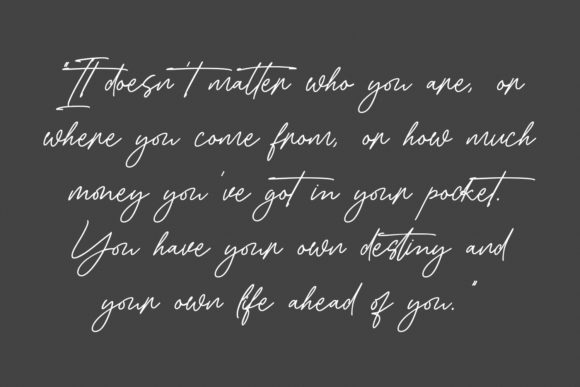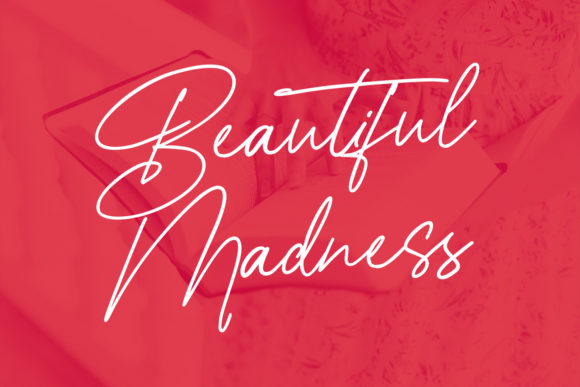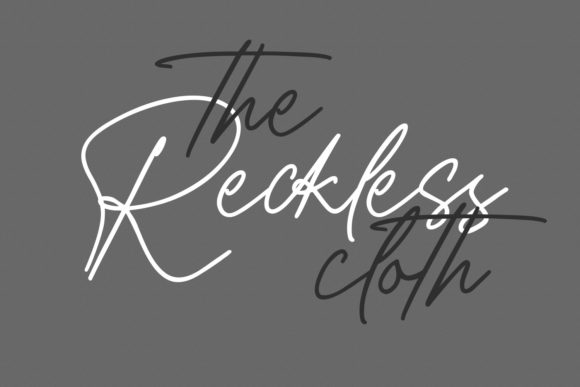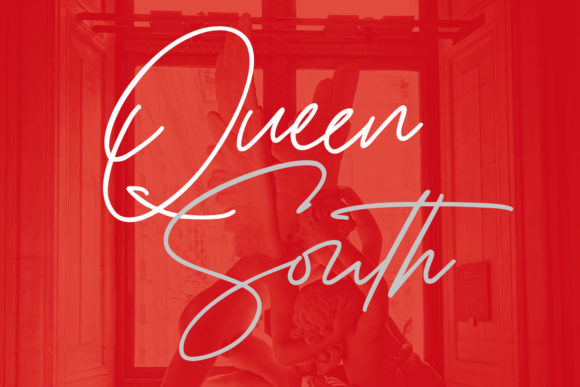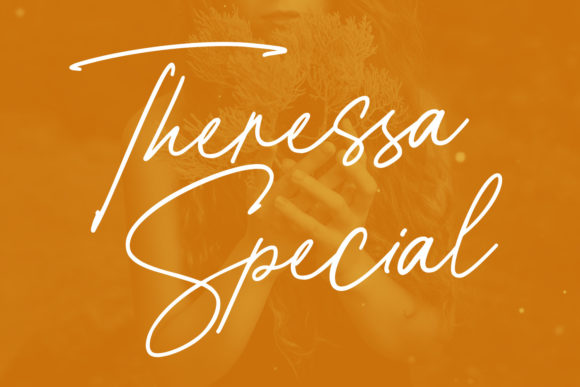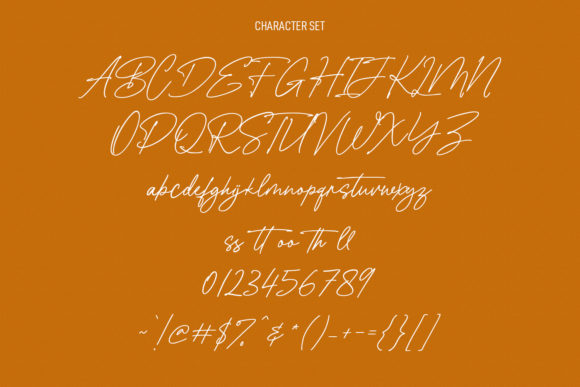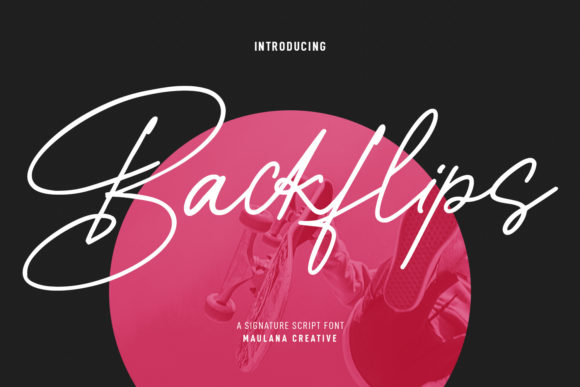
Introducing Backflips Font: Elevate Your Designs with Luxury and Flair
Are you tired of using the same old fonts in your design projects? Look no further than Backflips Font, a fancy script font that’s sure to add a touch of luxury and sophistication to any design. With its medium contrast strokes, fun characters, ligatures, and alternates, Backflips Font is the perfect choice for designers and crafters looking to take their work to the next level.
What Makes Backflips Font Special?
Backflips Font is a unique and stylish script font that features a range of characteristics that set it apart from other fonts. Some of its key features include:
- Medium Contrast Strokes: Backflips Font features medium contrast strokes that give it a sense of elegance and sophistication. The contrast between the thick and thin strokes adds depth and visual interest to the font, making it perfect for designs where you want to make a statement.
- Fun Characters: Backflips Font includes a range of fun and playful characters that can add a touch of whimsy to your designs. From the elegant swashes to the playful ligatures, every character in Backflips Font has been carefully crafted to bring a sense of joy and creativity to your work.
- Ligatures and Alternates: Backflips Font also includes a range of ligatures and alternates that allow you to customize the font to suit your design needs. Whether you want to create a sense of movement and flow or add a touch of elegance and sophistication, the ligatures and alternates in Backflips Font give you the flexibility to do just that.
Why Choose Backflips Font for Your Design Projects?
So why should you choose Backflips Font for your design projects? Here are just a few reasons why Backflips Font is the perfect choice for designers and crafters:
- Adds a Touch of Luxury: Backflips Font is the perfect choice for designers who want to add a touch of luxury and sophistication to their work. Whether you’re creating a logo, branding materials, or marketing collateral, Backflips Font is sure to make your designs stand out.
- Versatile: Backflips Font is a versatile font that can be used in a wide range of design projects. From elegant wedding invitations to playful packaging designs, Backflips Font is the perfect choice for any project where you want to add a touch of elegance and sophistication.
How to Use Backflips Font in Your Designs
Using Backflips Font in your designs is easy. Here are a few tips to get you started:
- Pair it with a Sans Serif Font: Backflips Font looks great when paired with a sans serif font. Try pairing it with a font like Arial or Helvetica to create a striking contrast between the elegant script font and the clean sans serif font.
- Use it for Headings: Backflips Font is perfect for headings and titles. Use it to create eye-catching headlines that grab attention and draw the reader in.
- Experiment with Ligatures and Alternates: Don’t be afraid to experiment with the ligatures and alternates in Backflips Font. Try swapping out different characters to create a unique look that reflects your brand’s personality.